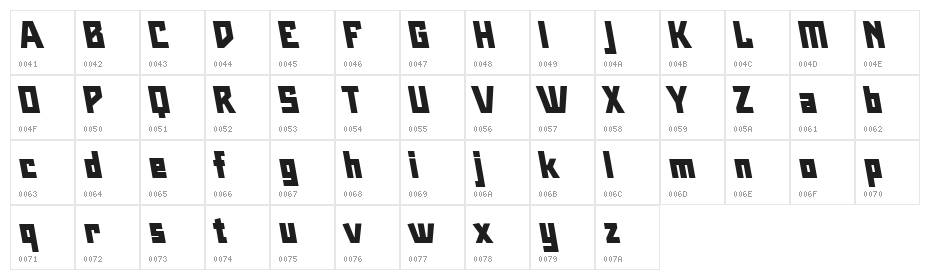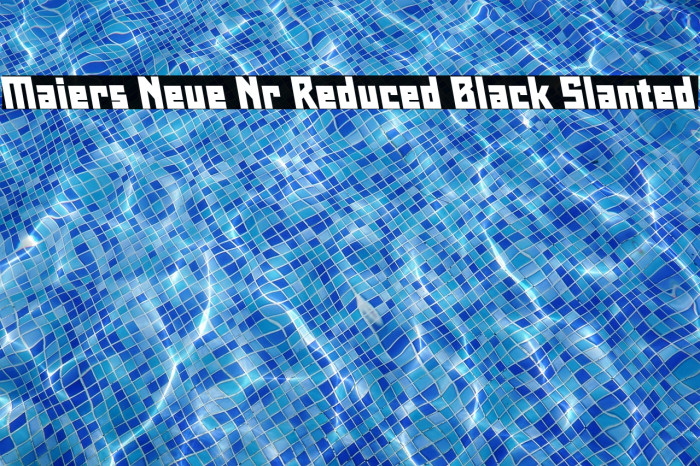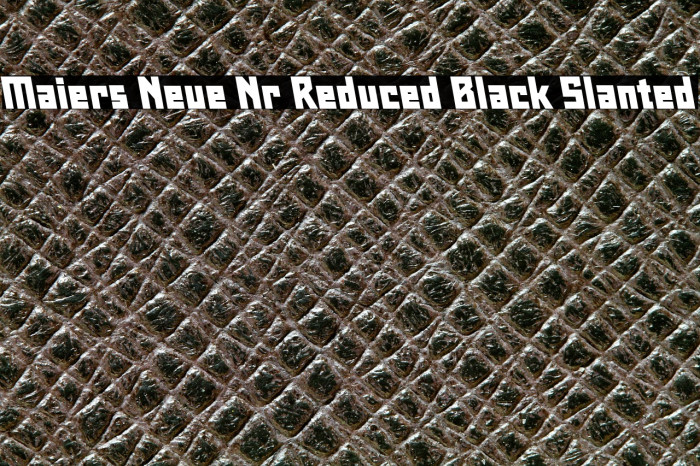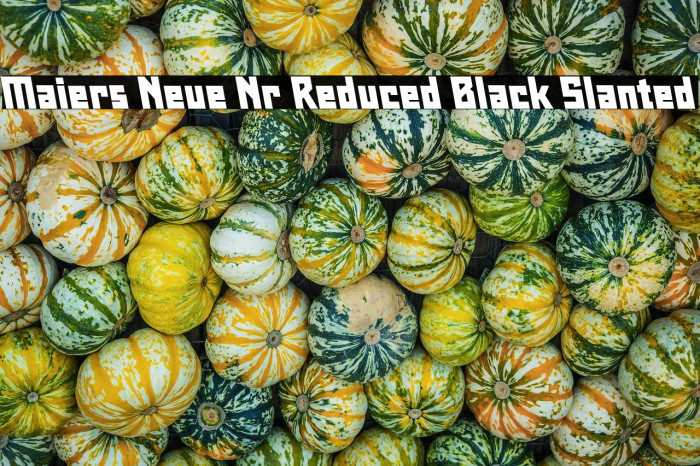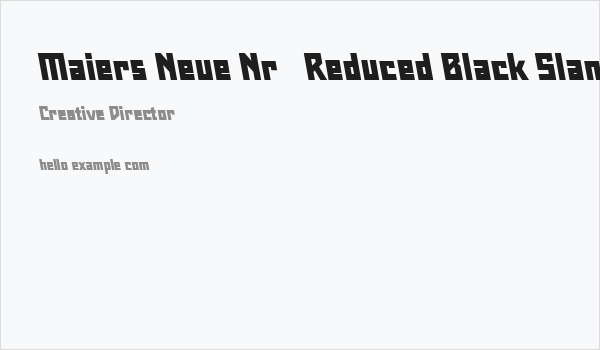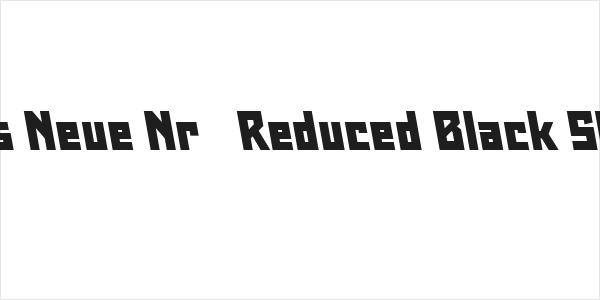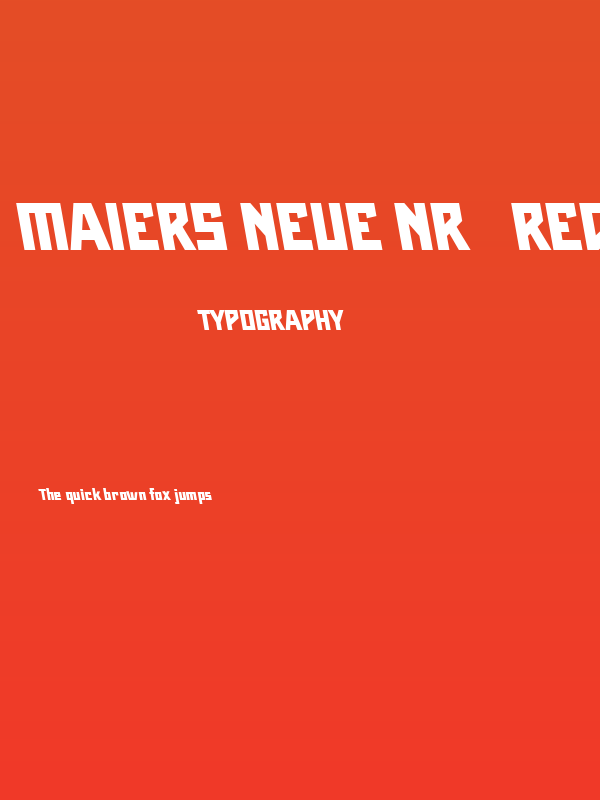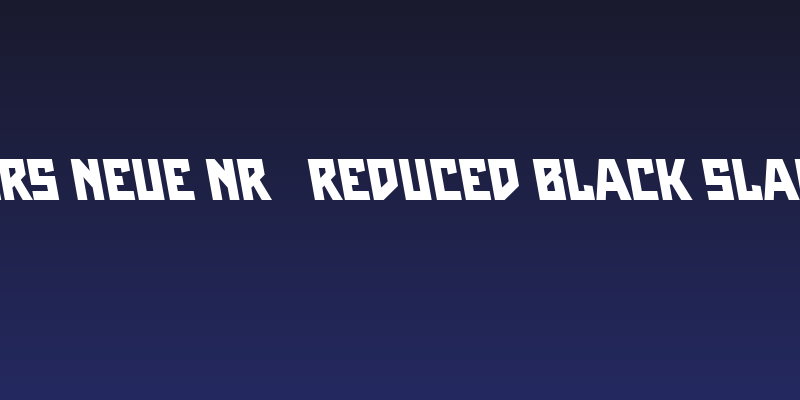
Maiers Neue Nr.8 Reduced Black Slanted Font
Maiers Neue Nr.8 Reduced Black Slanted Description
This font features a bold and striking design with a slanted, angular style that gives it a modern and dynamic appearance. The characters are heavily weighted, providing a strong visual impact. The uppercase and lowercase letters maintain a consistent geometric form, with sharp edges and a slight forward tilt, enhancing the sense of movement. The numbers and special characters follow the same design principles, ensuring uniformity across all glyphs. This font's unique style makes it ideal for attention-grabbing headlines and titles.
| Proposed Projects | Ideal for use in branding, posters, and headlines where a strong, modern impact is desired. |